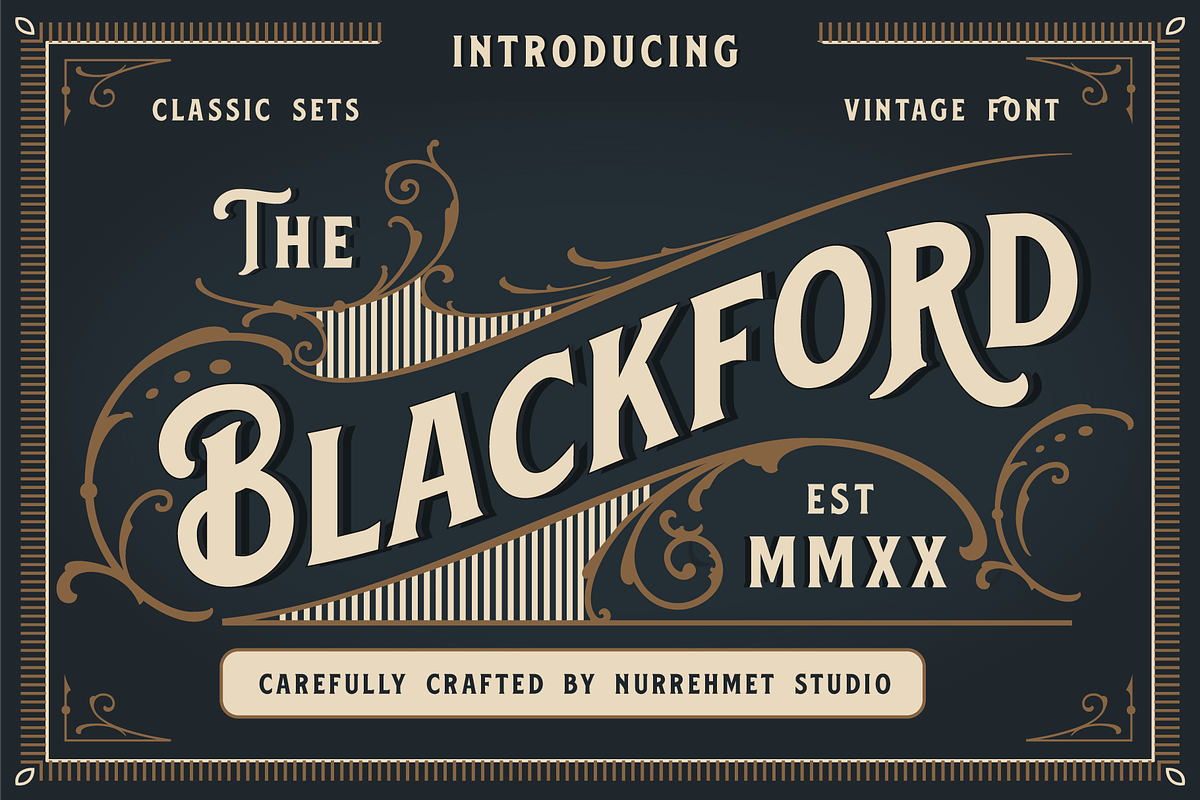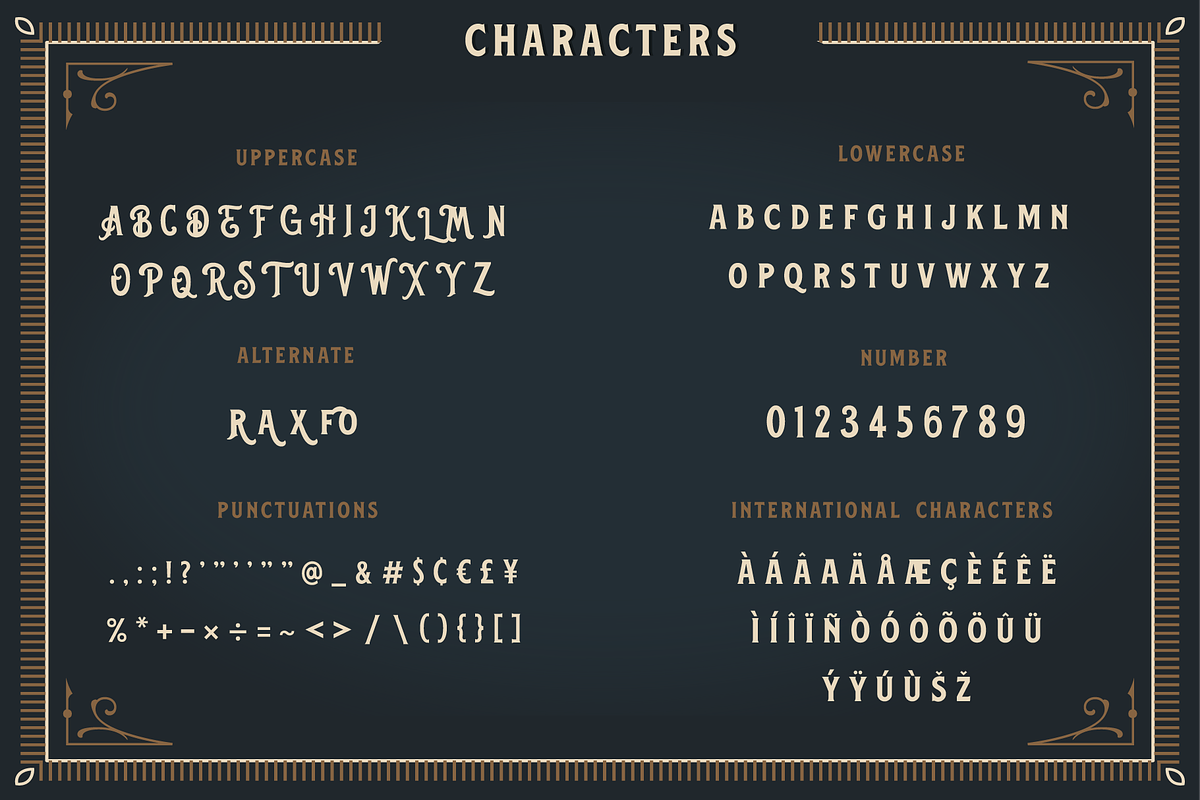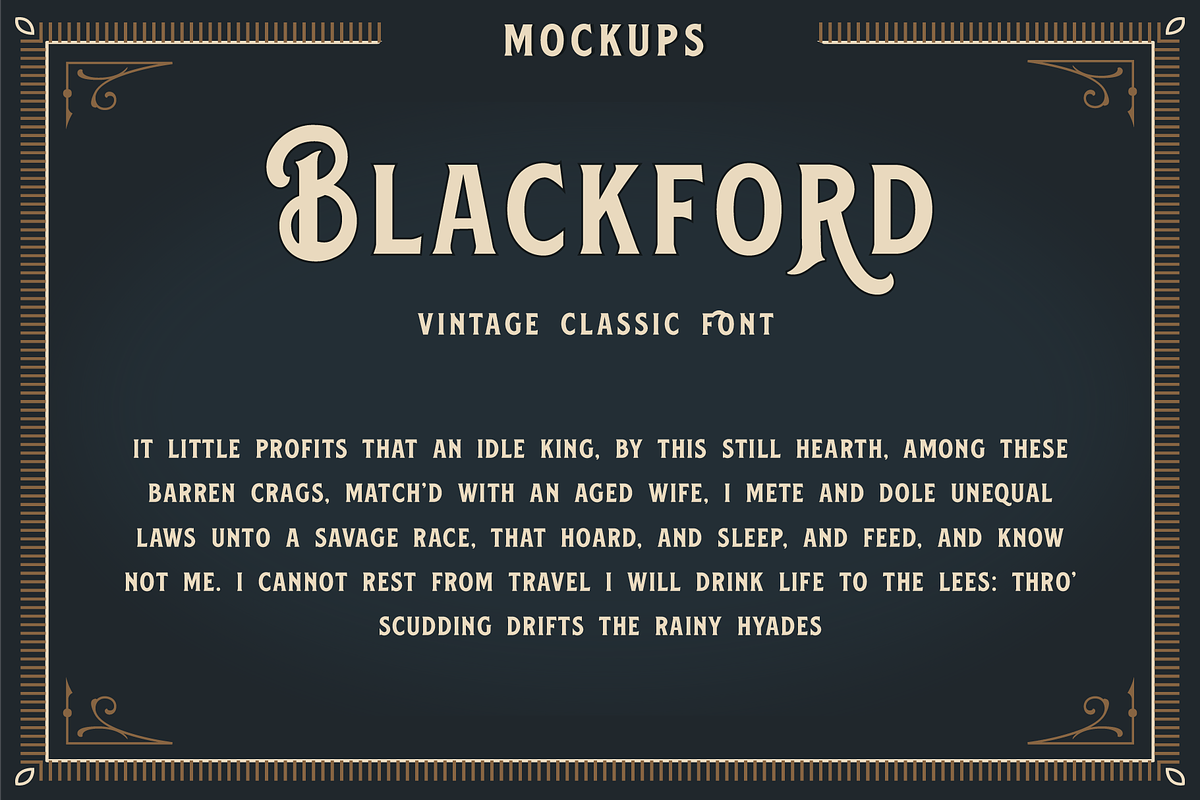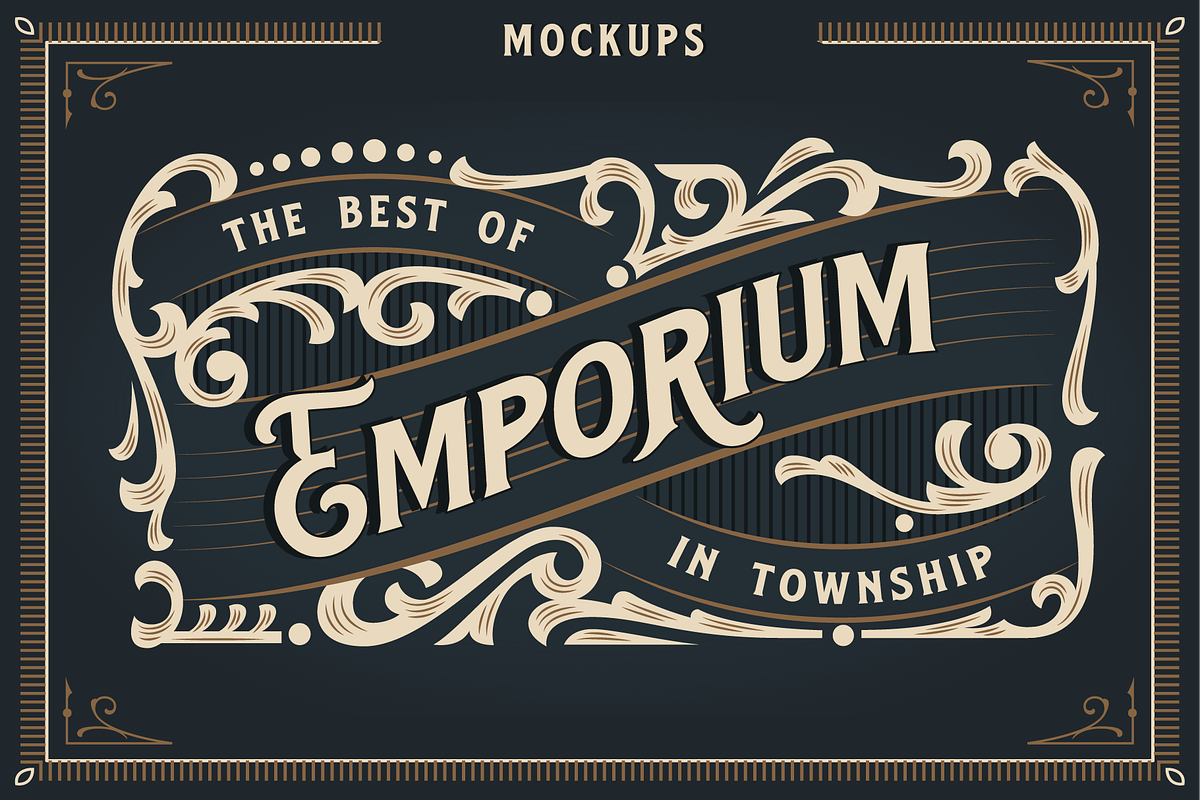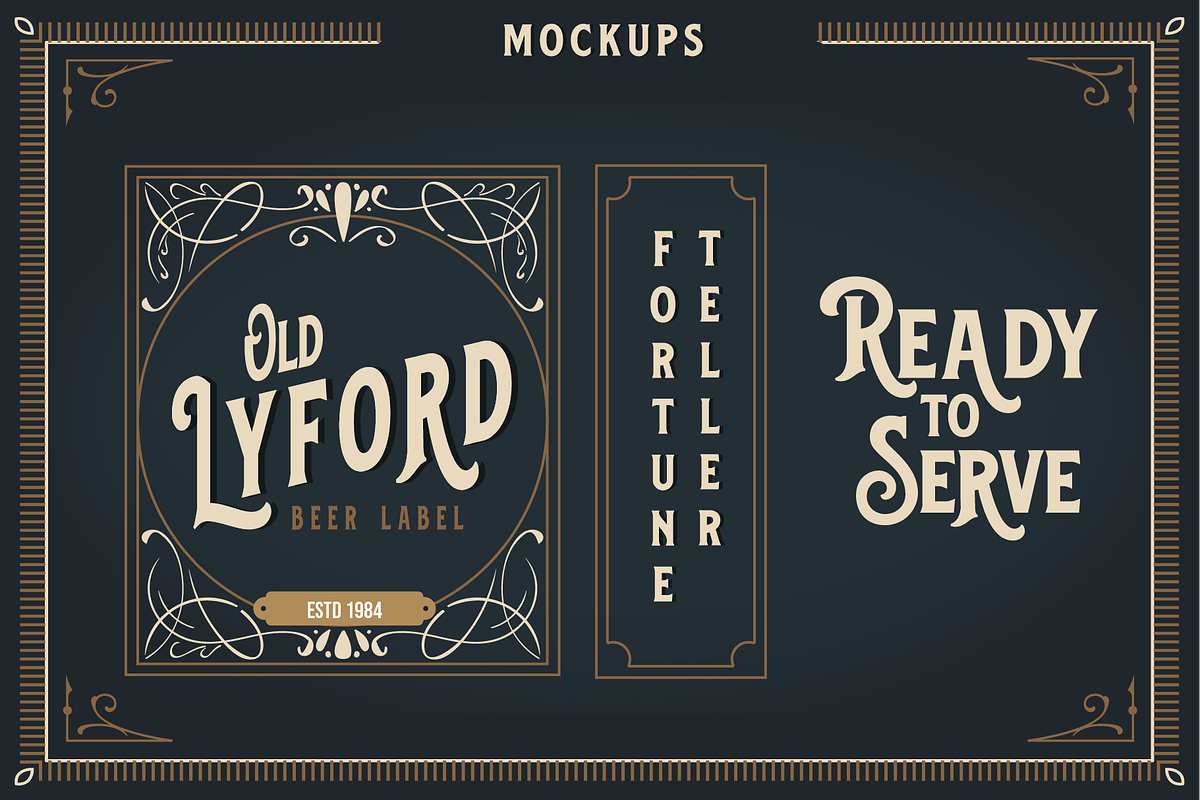
Blackford - Vintage Classic Font
Meet, Blackford a new classic vintage font inspired by old packaging and labels. This font is completely perfect match with your vintage logo design, invitation, or labels. You can also mix this font with any victorian ornaments.
A - Z Characters with some special alternate on lowercase
Numbers and punctuations
International Characters are included